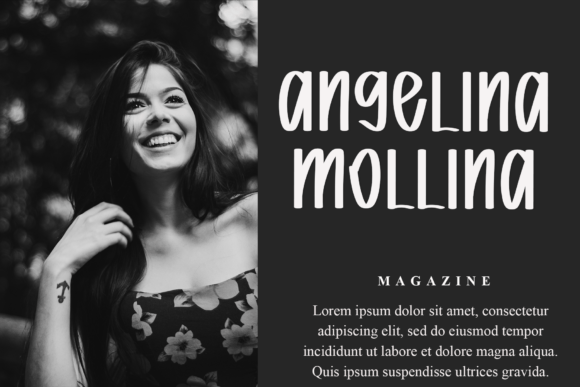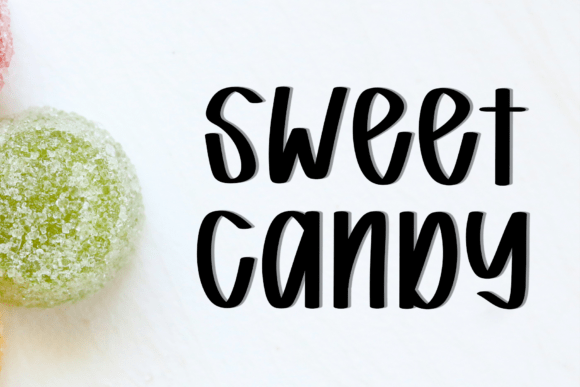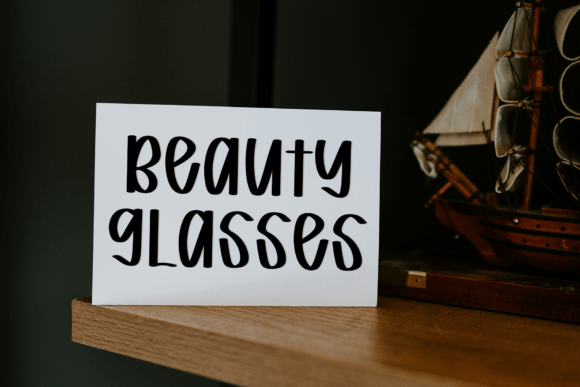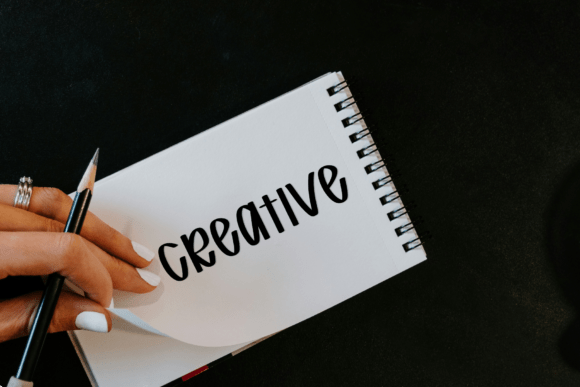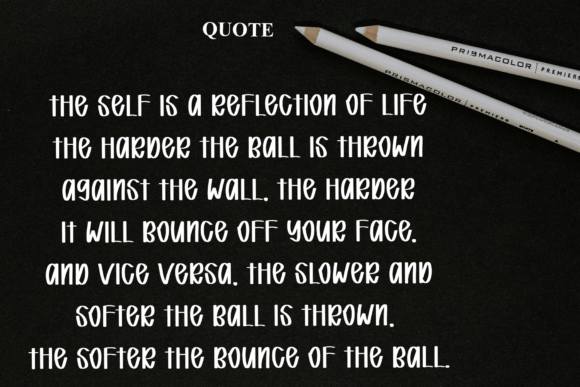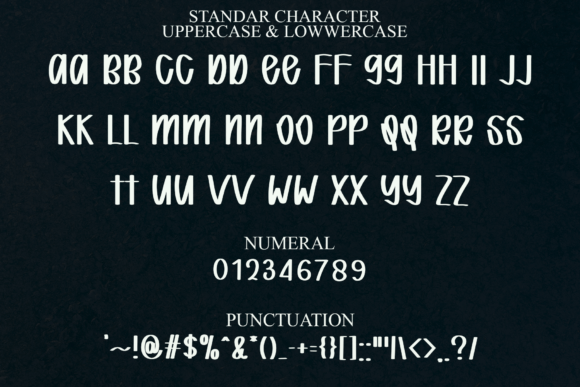
Introduction to Preppy Cheer Font
Preppy Cheer is a festive and merry typeface that captures the spirit of the holiday season.
Key Features of Preppy Cheer Font
Why Choose Preppy Cheer Font?
Preppy Cheer Font offers exceptional quality and versatility, making it a valuable addition to your design toolkit. Whether you’re creating for personal projects or commercial use, Preppy Cheer Font delivers professional results.